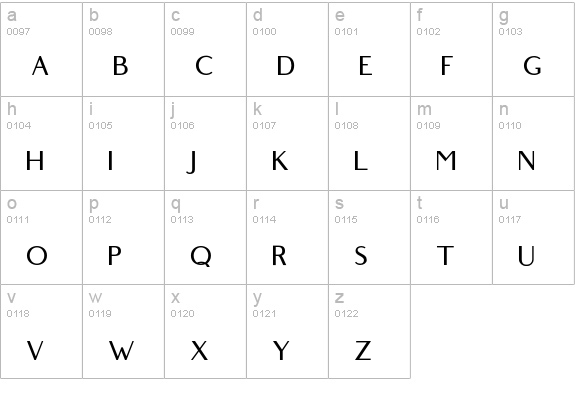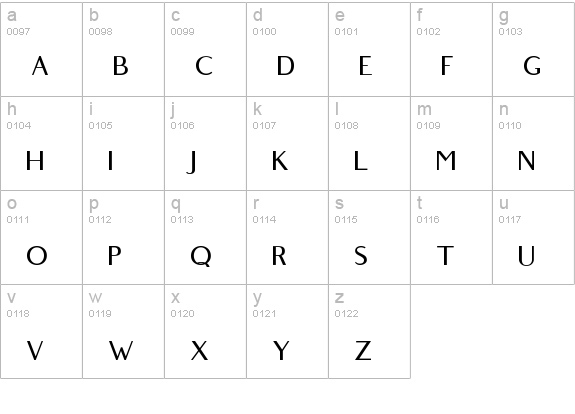
Belgium Font Details
Belgium font is a modern and sleek typeface that exudes elegance and sophistication. With its clean lines and stylish curves, this font is perfect for adding a touch of class to any design project. Whether you're designing a logo, creating a website, or working on a printed piece, Belgium font will make your text stand out.